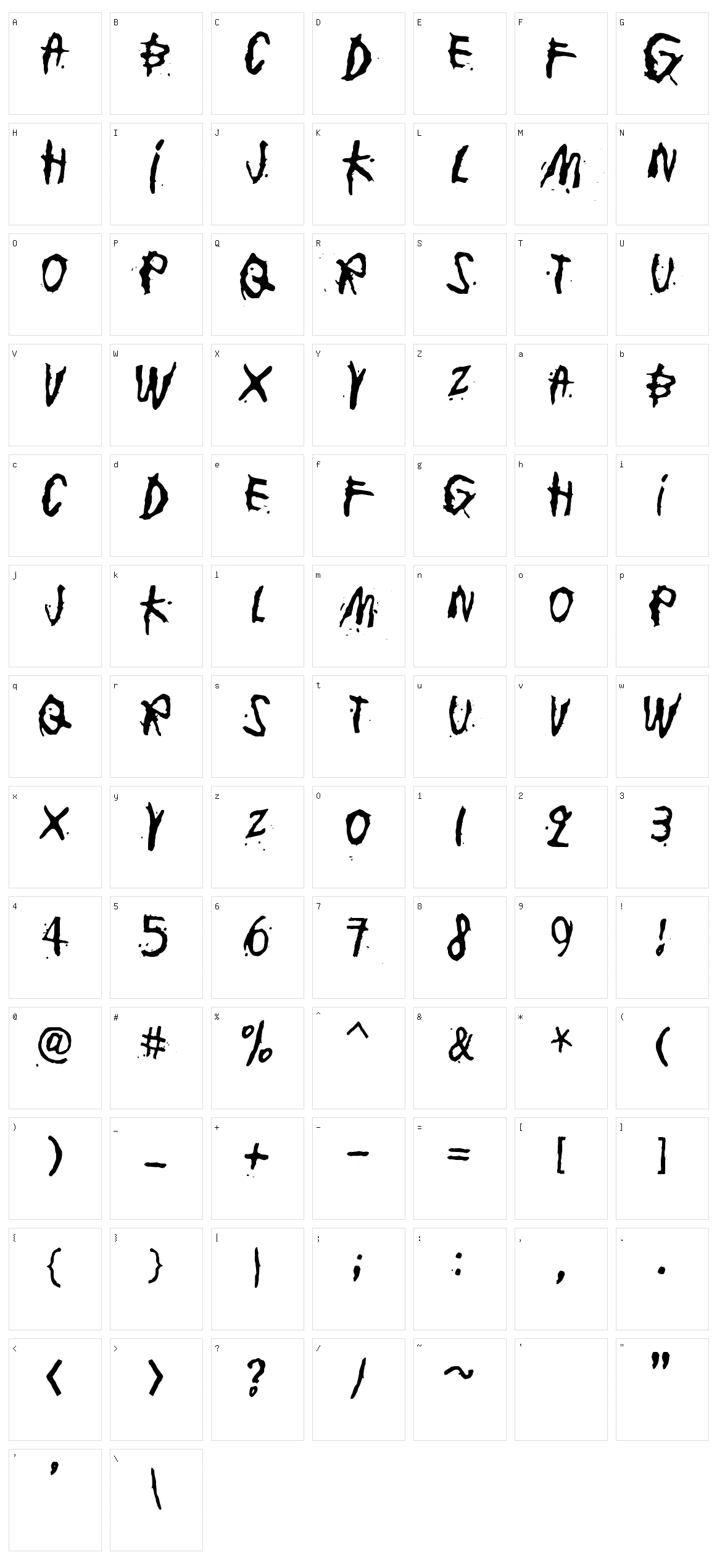
The free font Junkohanhero One is carefully designed by junkohanhero, showcasing a thoughtful balance of creativity and usability and falls under the Trash font style. When you download the ZIP file, it contains only 47.72 KB of font files, making it lightweight and quick to download. Please review the license details below to understand permitted usage and distribution rights. If license information is not available, we recommend using this font for personal projects only or contacting the author directly for commercial usage permissions.